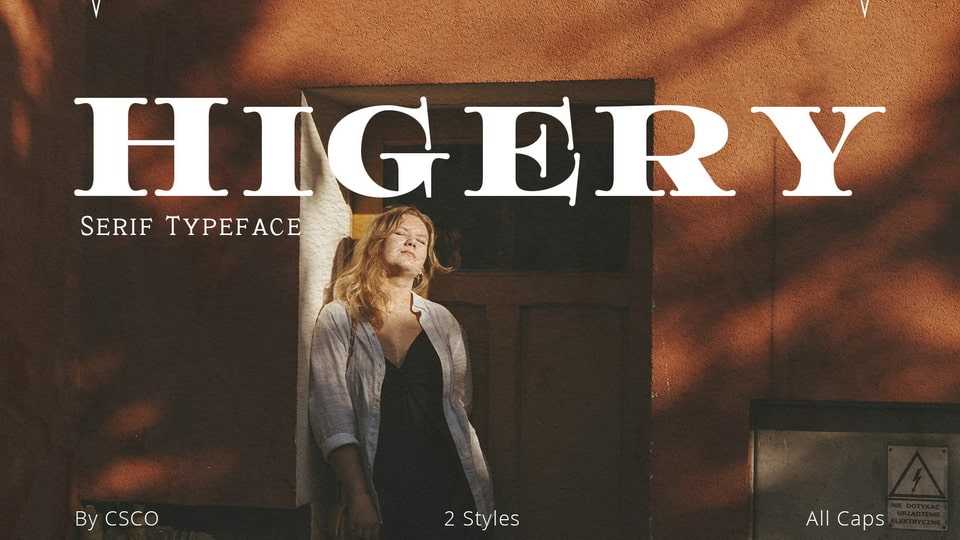
Download Higery font, a serif typeface that stands out with its unique tapered serifs. These details add a sophisticated charm. This font is ideal for captivating visual displays.